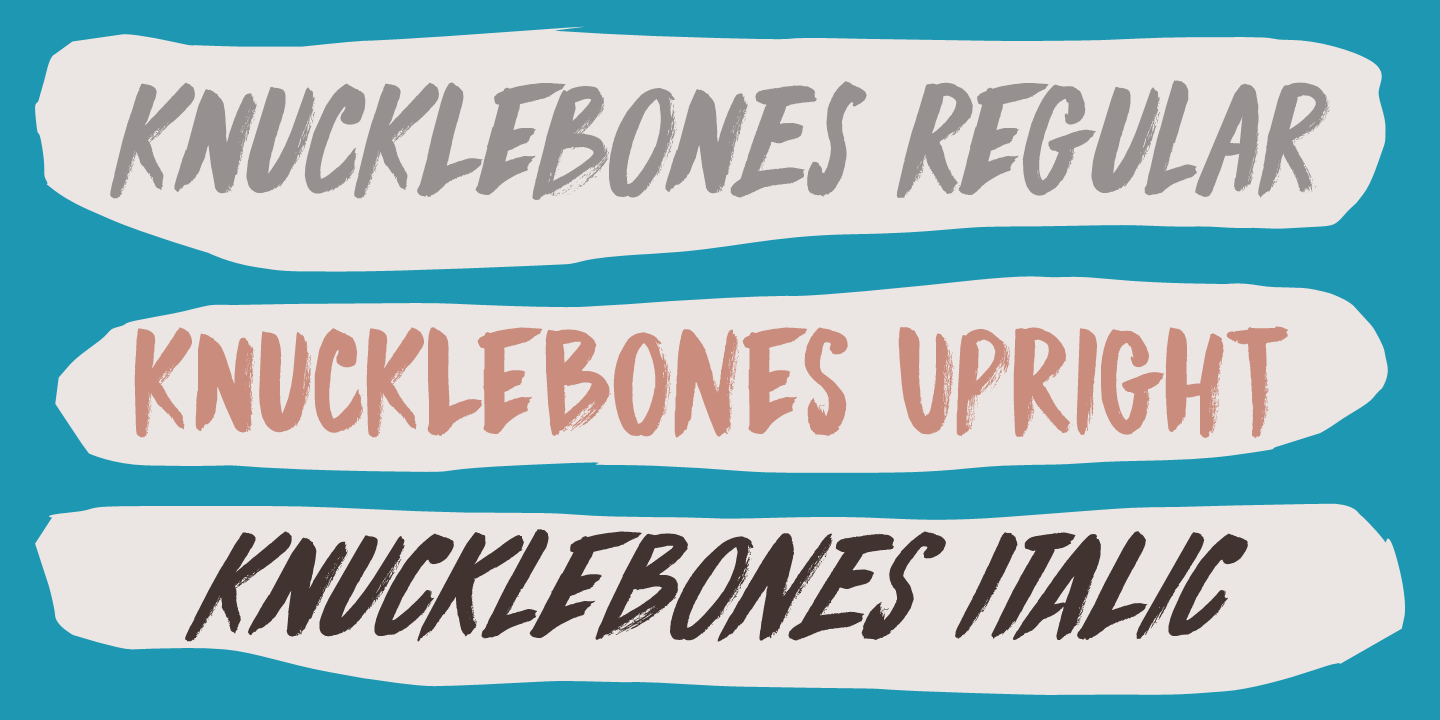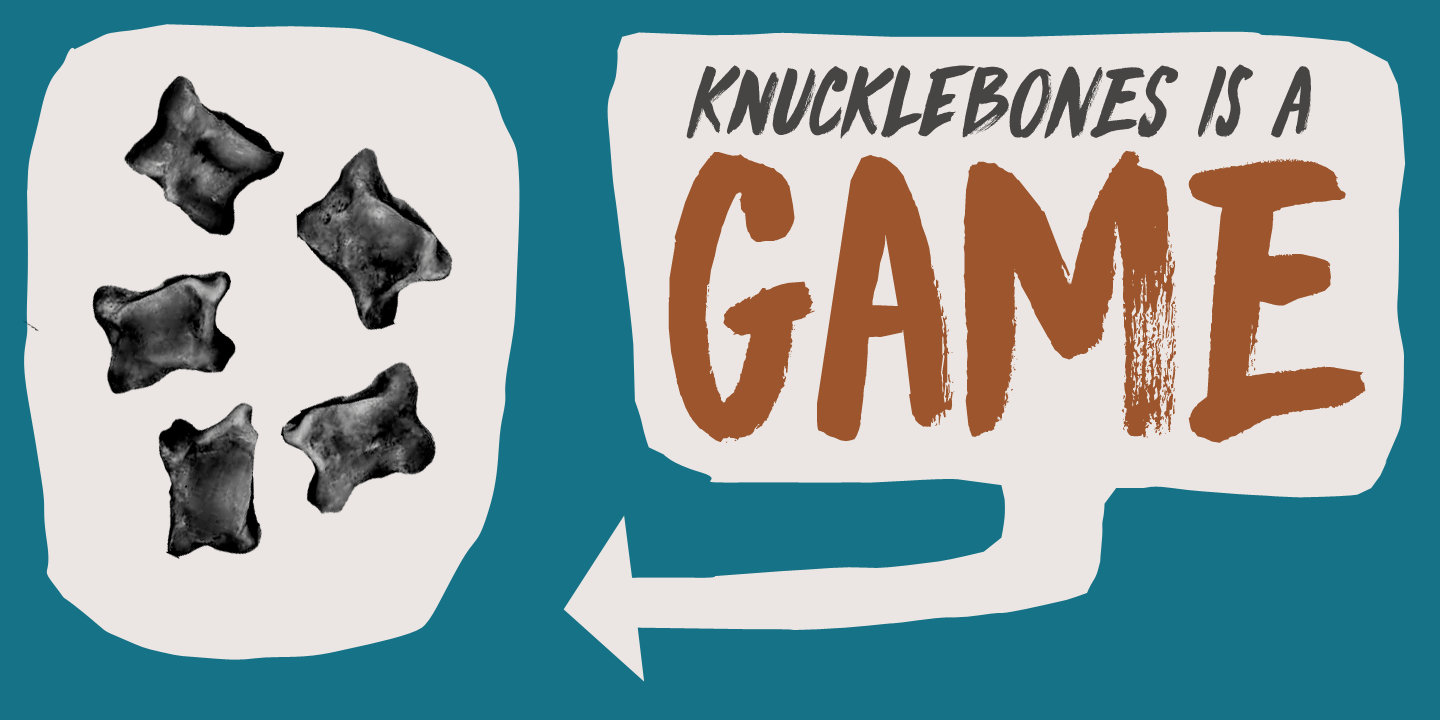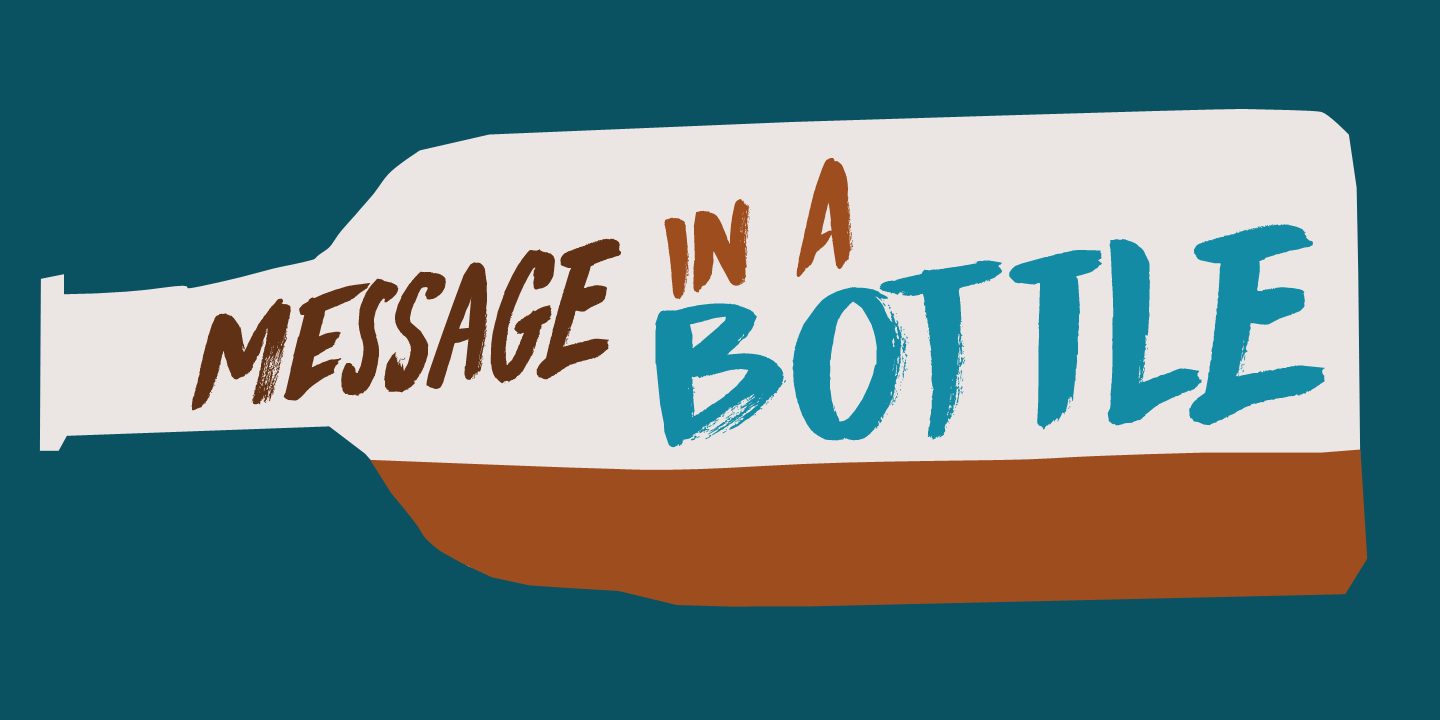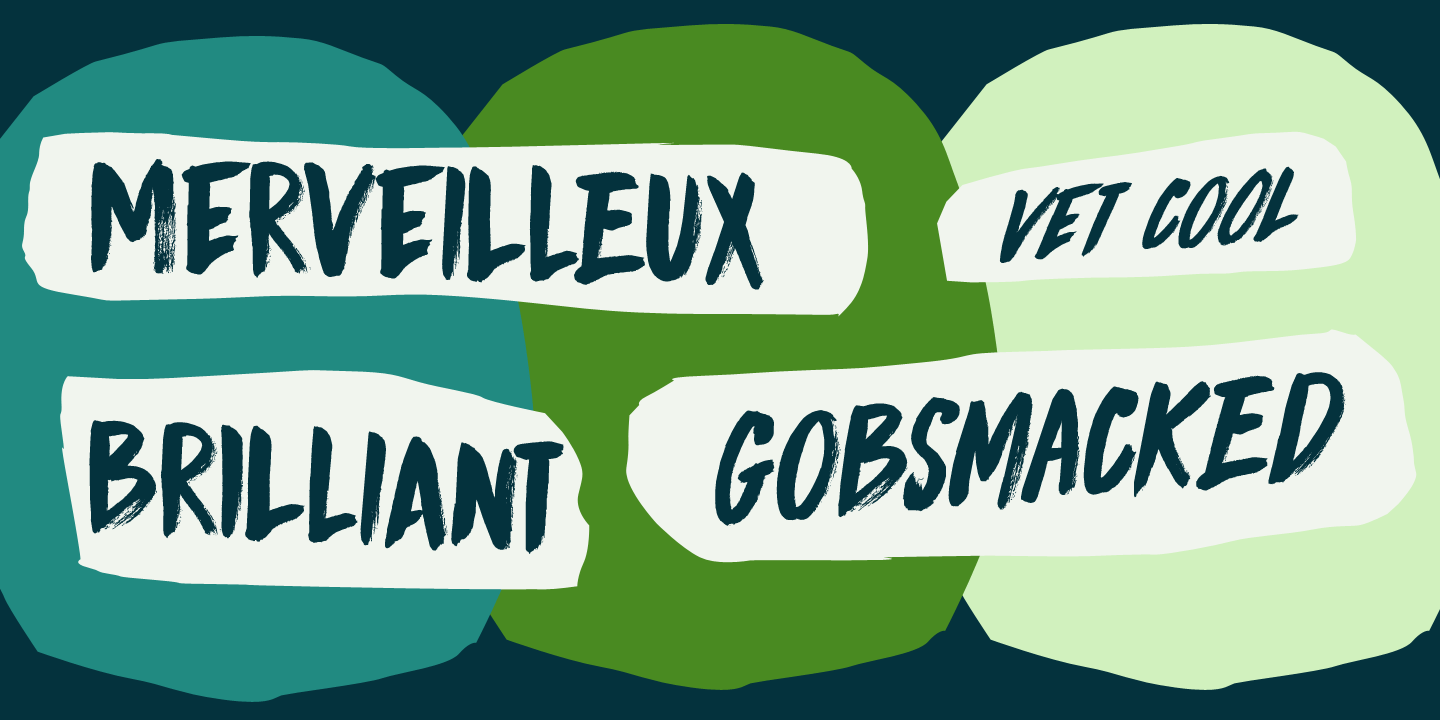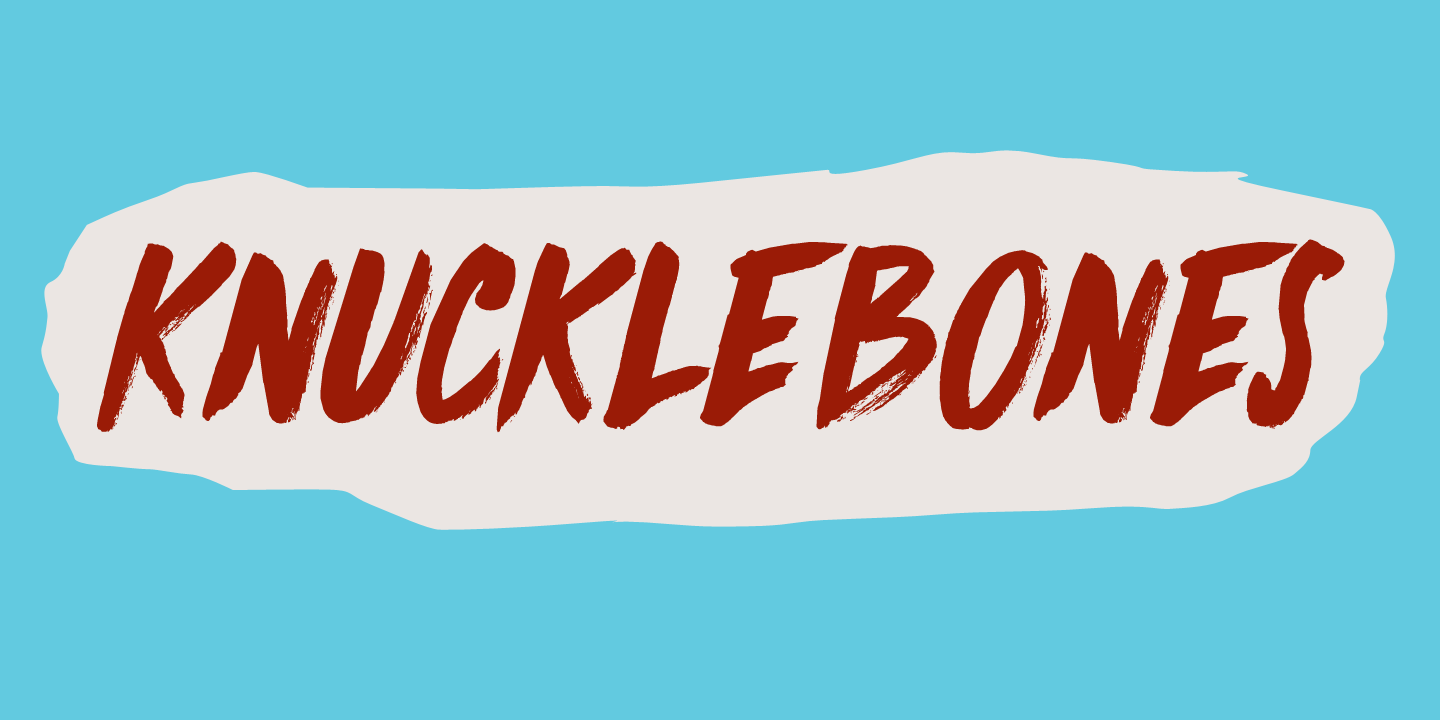
Knucklebones
About Knucklebones
Knucklebones is a game that is played with the knucklebones of sheep. I bought a set in Mongolia, which I stumbled upon when I was cleaning out the attic. Knucklebones font is a rough brush font, which comes in three styles: Knucklebones Regular, a slightly…